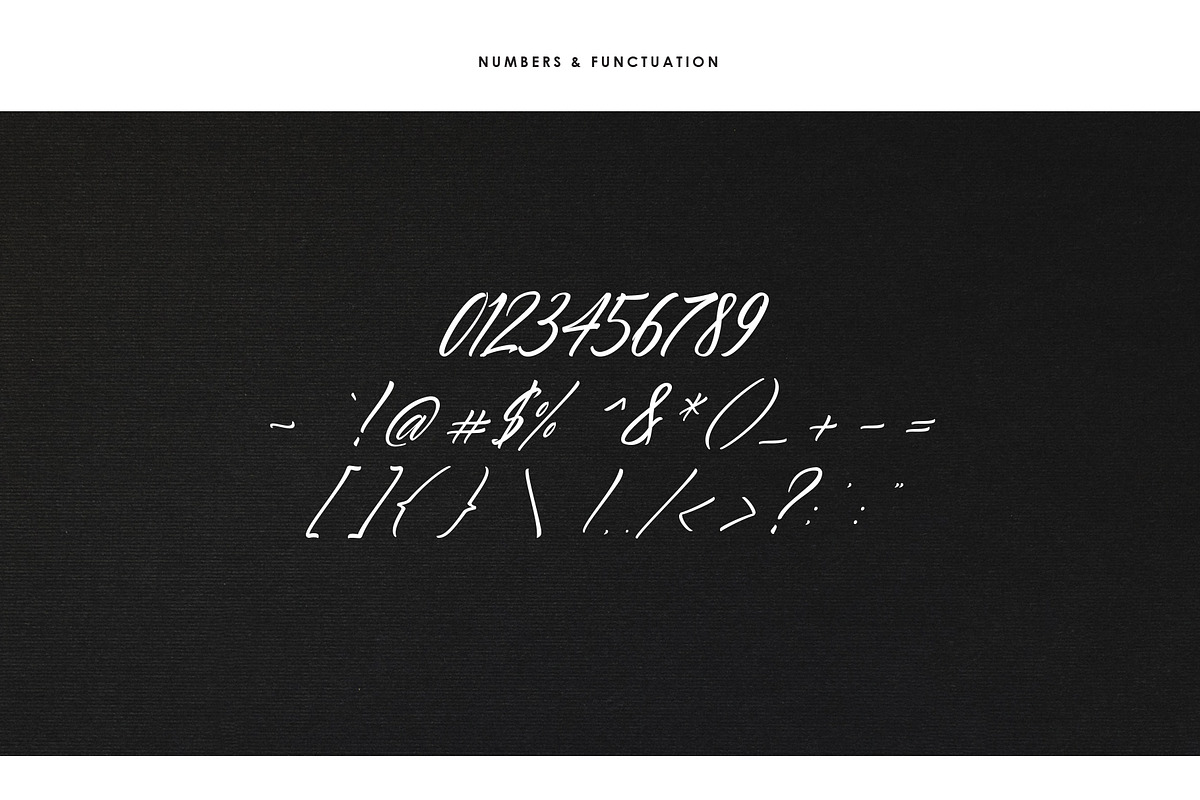
Mashygets
Mashygets created with Stylistic Handlettering Typeface characters. This Stylistic Handlettering Typeface was PUA encoded. Mashygets is a Handlettering Typeface style that comes with Extended Latin Characters. Mashygets works perfectly for logos, display, product branding, wedding invitation card, stationary, packaging, clothing, flyer, apparel, magazines, brochures, lable, posters, badges, etc.
Mashygets comes with 277 glyphs and 68 alternate characters contain with opentype features (supported with contextual alternates mode). Prishilly also comes with 13 extended ligatures that allowing you to make stuff looks more exclusive and pro standard.
- Contextual Alternate Support
- Opentype Feature
- Multingual Support